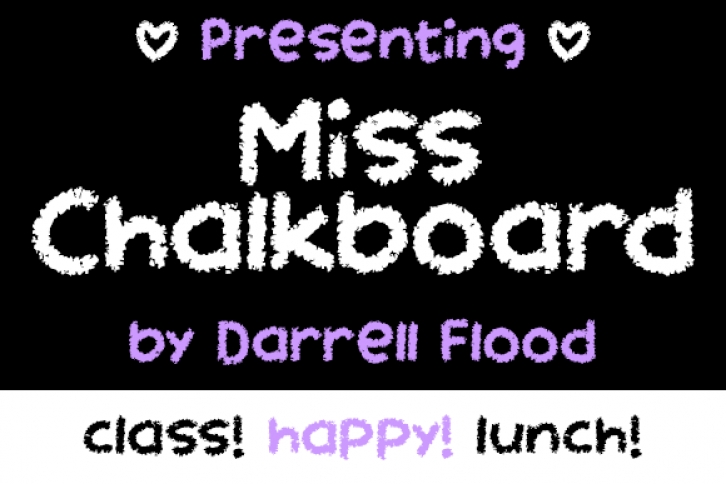
Miss Chalkboard is a neat, child-like font in a chalk drawn style. Perfect for school blackboards, restaurant signs, and general, playful kids themes!